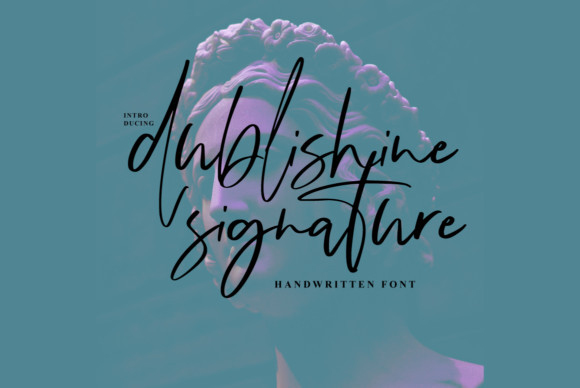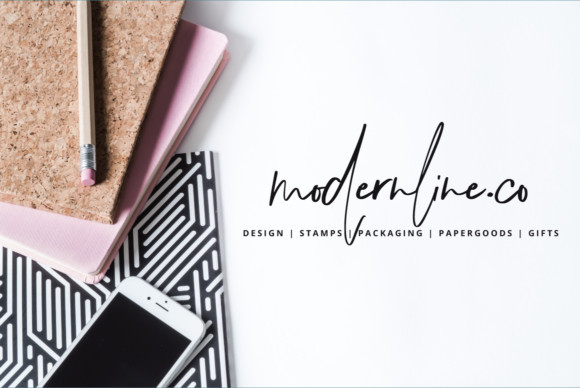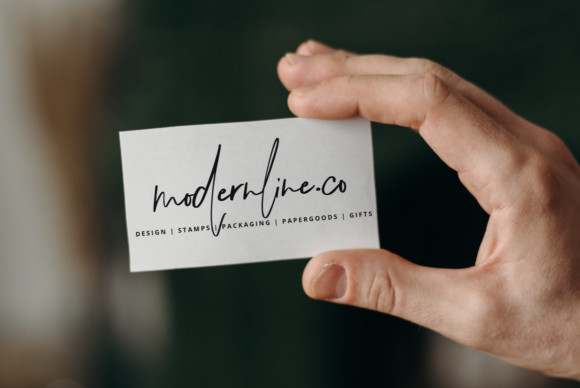
Dublishine Font
Dublishine FontDublishine is a thin script font. Clean and a little bit quirky, this font is the perfect fit for all of your logos, branding, social media, and crafty DIY projects.